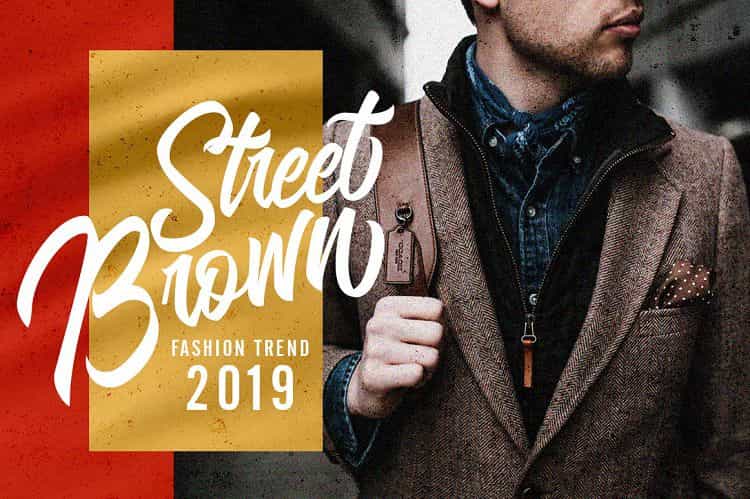
Discover Blangkon Script Font, part of the Brush Calligraphy collection—a versatile and unique font perfect for adding a personal touch to your projects. Download it for free and enjoy crafting designs with style, from invitations to social media posts. This font is available exclusively for personal use, giving you the freedom to create without limits. Unlock your creativity with Blangkon Script Font today!
Blangkon Font – is a calligraphy script font that was created and distributed by Kotak Kuning Studio. The Blangkon is a superb font, which was created using the inspiration from modern fashion and streetwear. It has the natural handwriting characteristic that will make your design to be more personal.